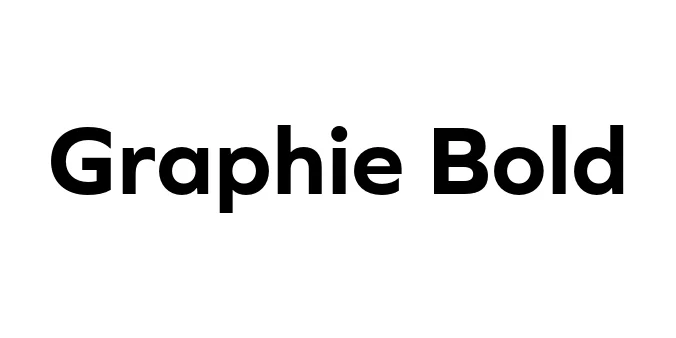
Graphie Bold
Designed by Kosta Bantschev
| Category | Geometric Sans Serif |
Graphie Bold is a contemporary geometric sans-serif typeface designed with a focus on simplicity and technical precision. Developed by designer Kosta Bantschev, the font strikes a unique balance between mechanical construction and humanist proportions, ensuring that it remains highly legible even in dense typographic environments. Its clean, wide apertures and consistent stroke weights reflect a minimalist philosophy suitable for high-end design projects.
The Bold weight of the Graphie family is particularly effective for visual communication that requires authority without losing a sense of modern elegance. Since its release, it has become a popular choice for designers seeking a versatile alternative to classic geometric fonts, offering a fresh take on the genre through its refined terminals and balanced negative space.
Graphie Bold Best Uses
Ideal for creating strong and memorable logos or corporate identity systems.
Perfect for high-impact titles in magazines, posters, and digital banners.
Excellent for clean user interface headers and modern web layouts.
Well-suited for subheadings and pull quotes in professional publications.